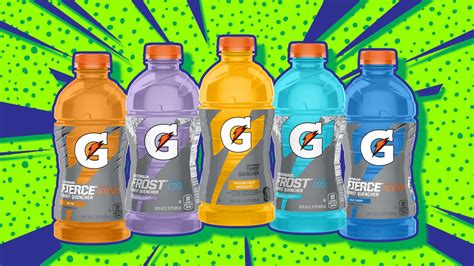
Wht Font Does Gatorade Use. The font subfamily is bold. I'm not sure what font they use for this.
Web mar 01, 2018 at 15:42. The font subfamily is bold. This bold, modern font features blocky letterforms and. Edited on mar 01, 2018 at 17:11 by frd.